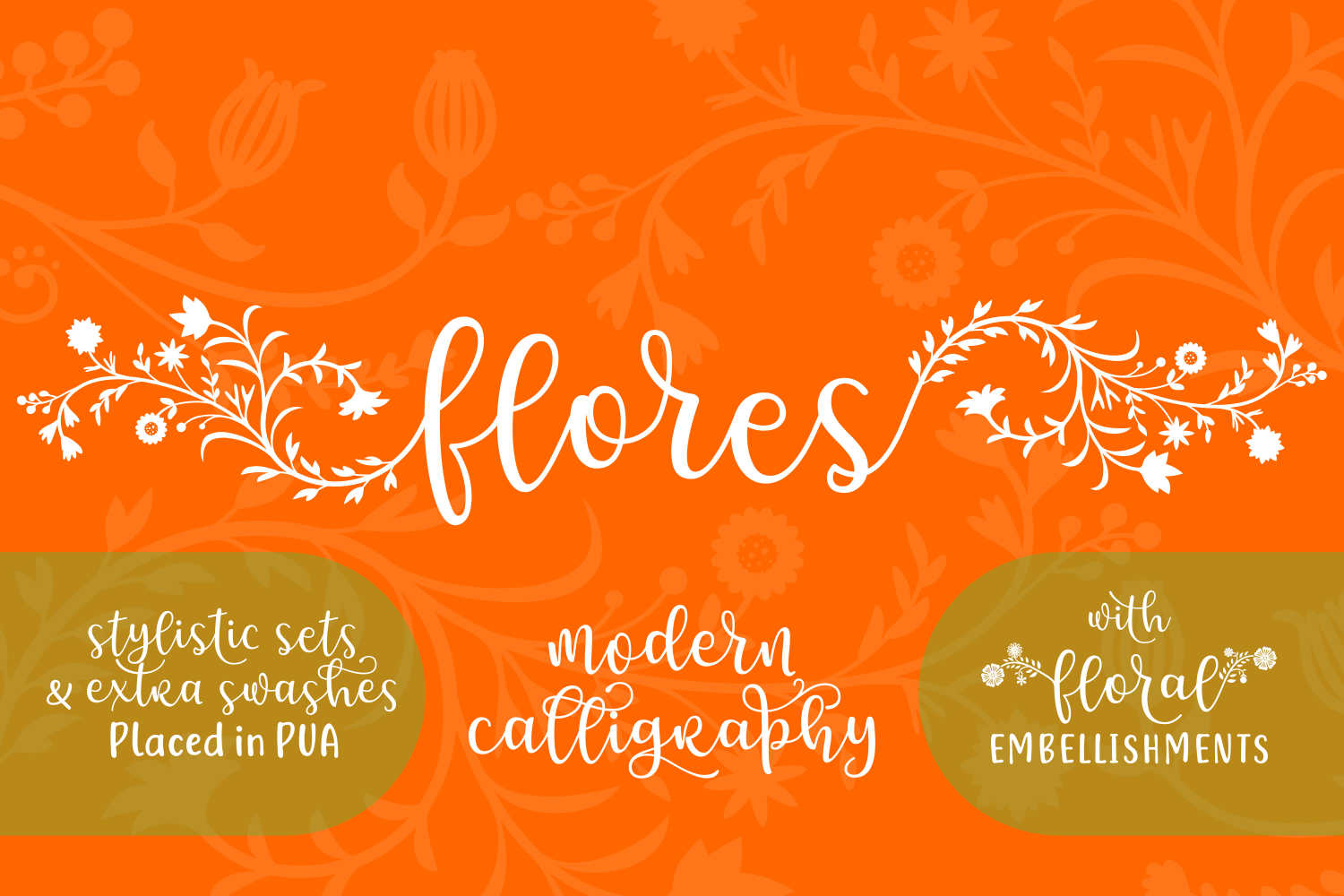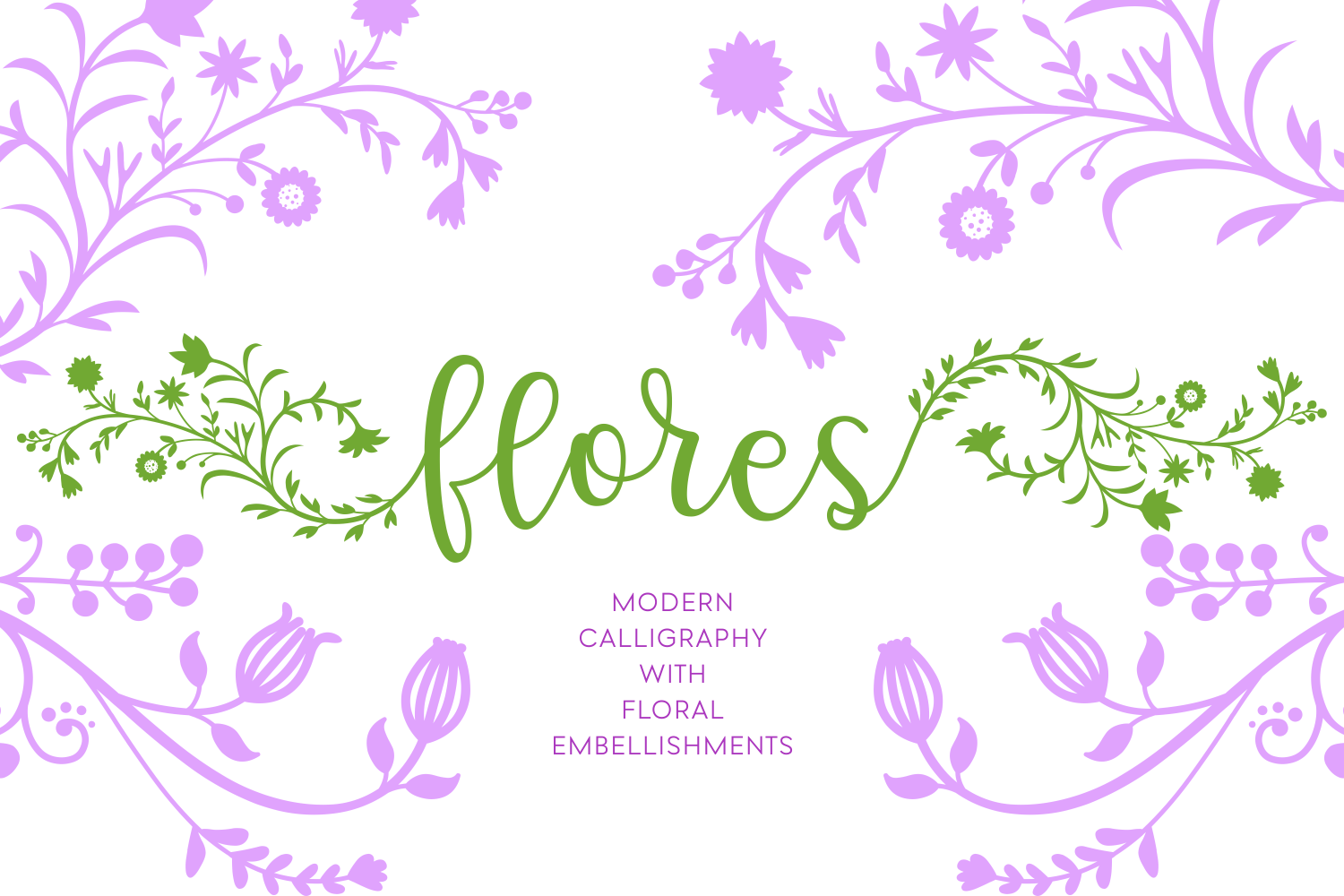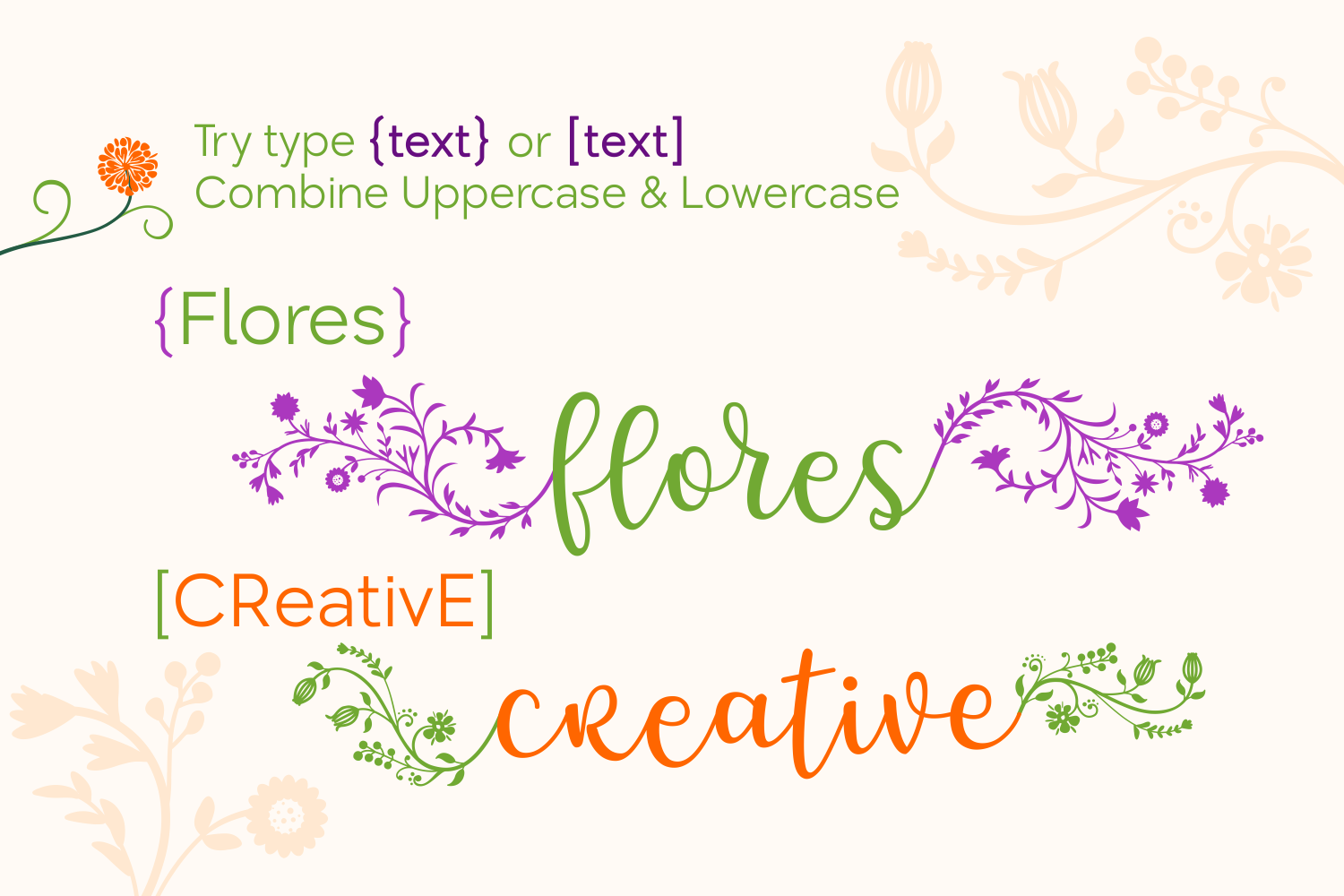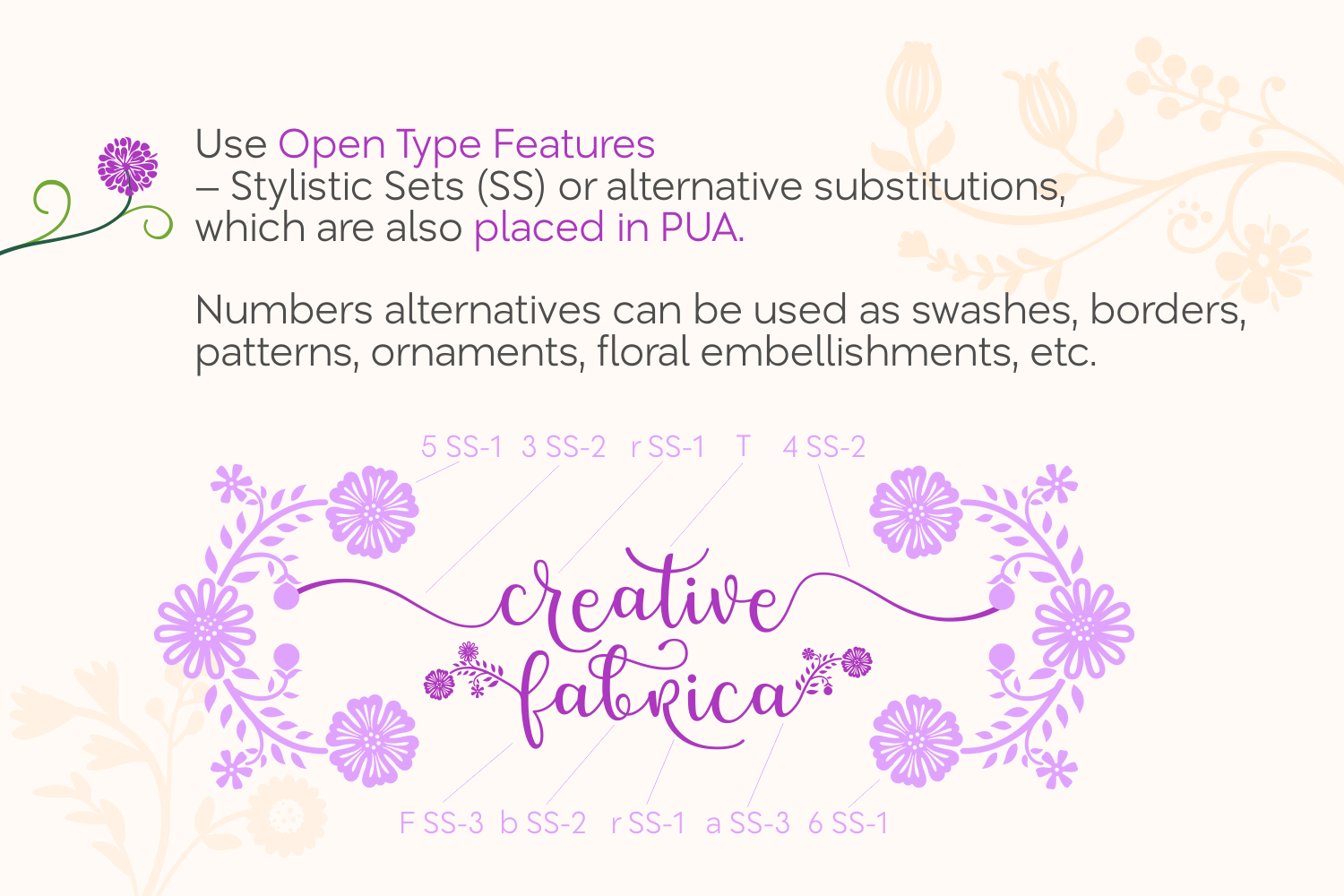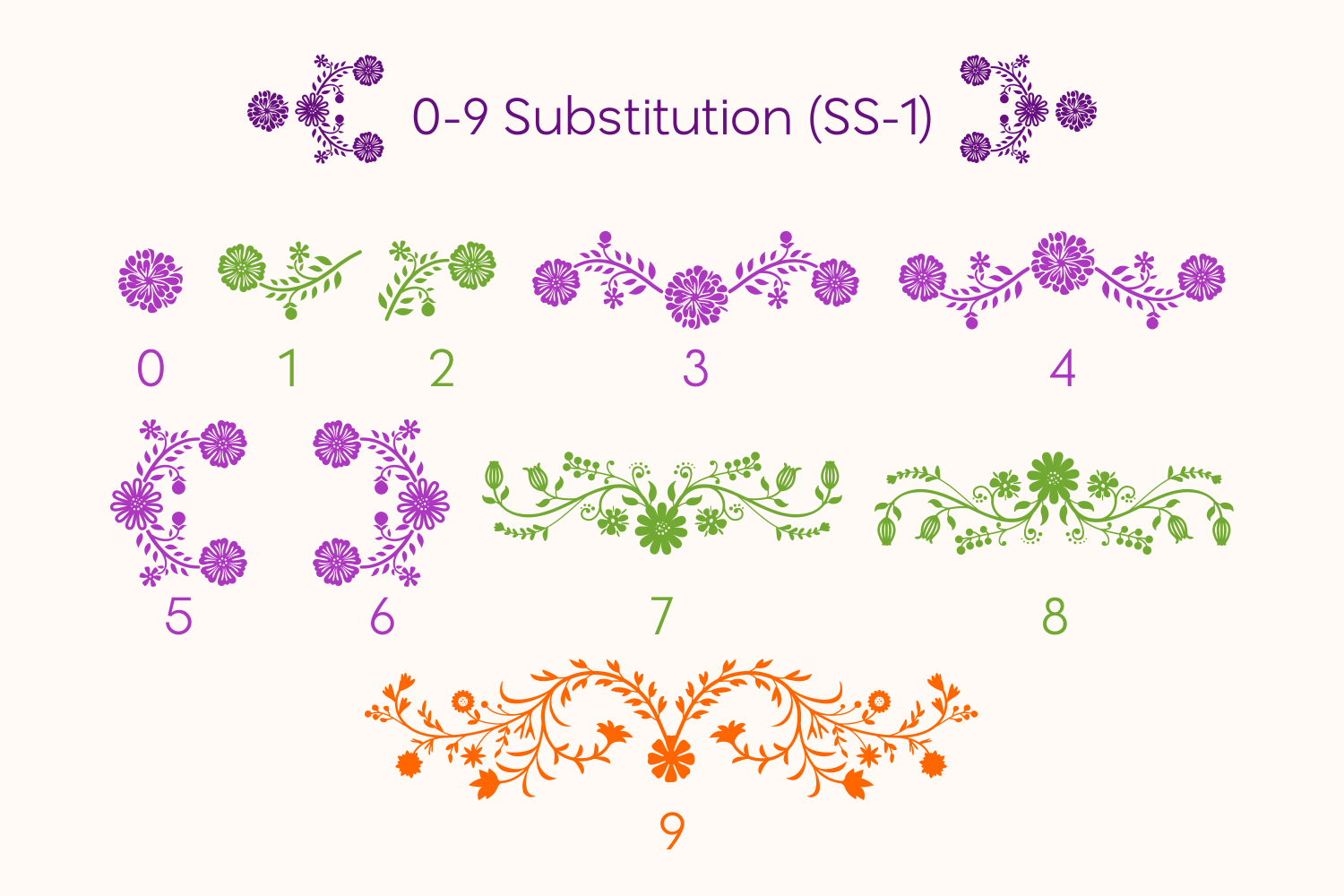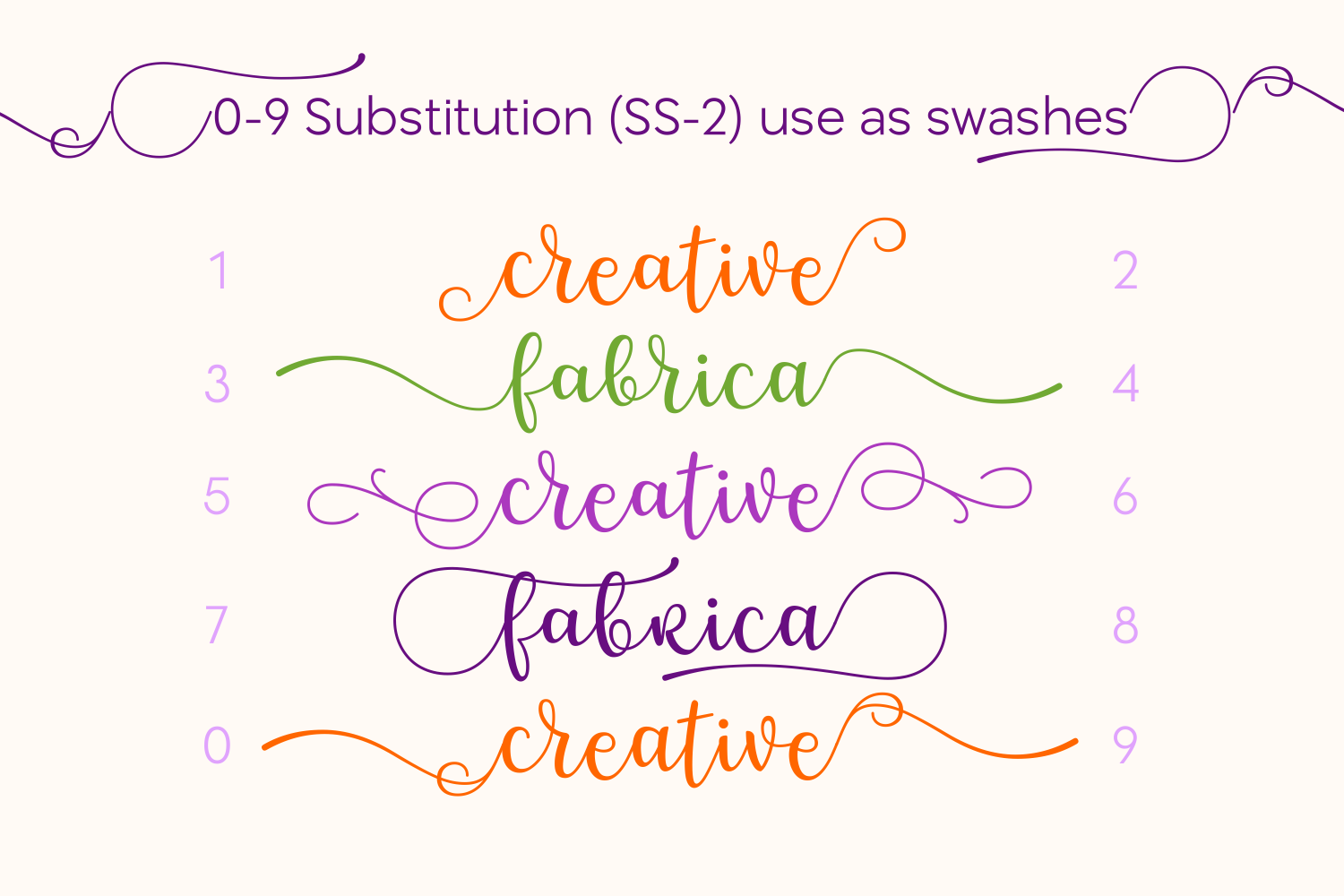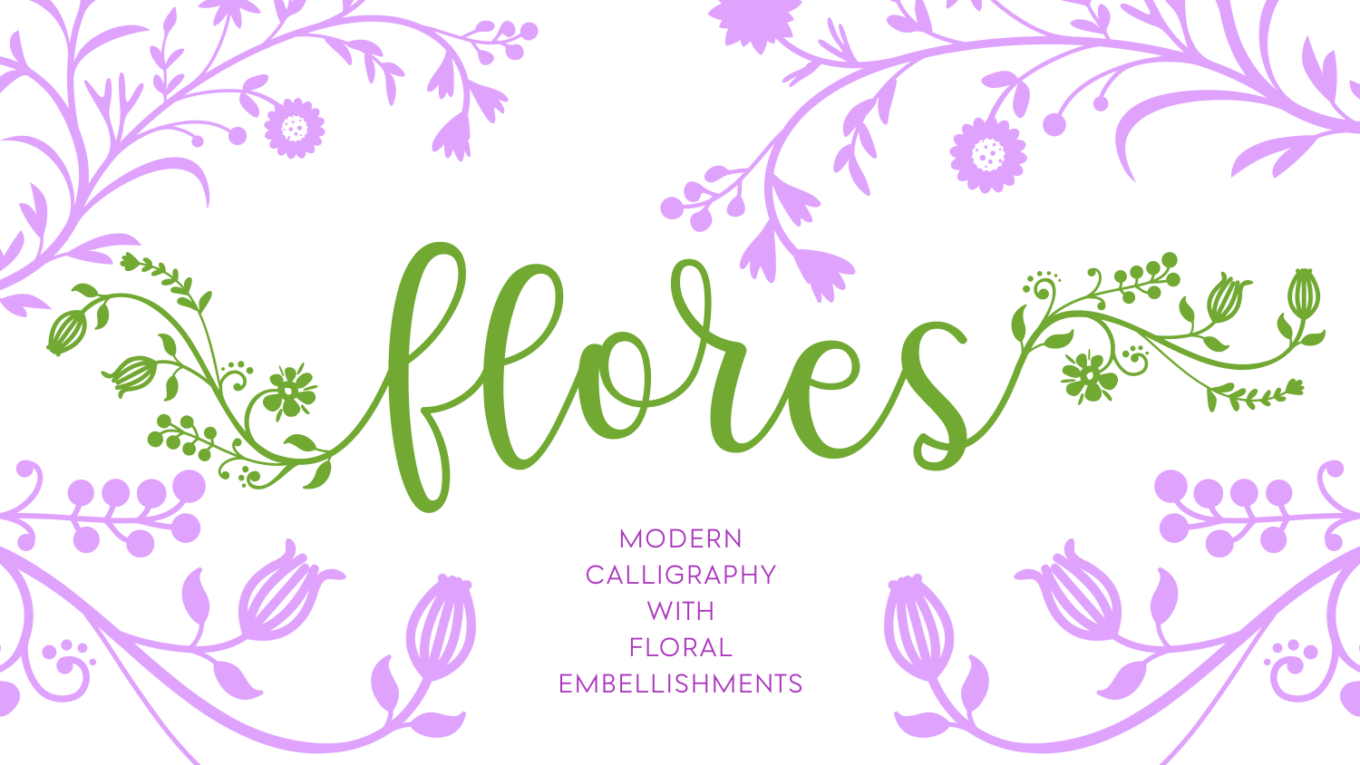
Introducing Flores Font: Elevate Your Designs with Modern Calligraphy and Floral Swashes
Are you looking for a font that can add a touch of elegance and sophistication to your designs? Look no further than Flores Font, a modern calligraphy font that is packed with beautiful floral swashes. This stunning font is perfect for designers and crafters who want to create unique and memorable designs that stand out from the crowd.
What is Flores Font?
Flores Font is a modern calligraphy font that is designed to provide a natural and effortless look. The font features beautiful floral swashes that are integrated seamlessly into the design, creating a cohesive and polished look. The swashes are carefully crafted to add a touch of whimsy and elegance to any design, making it perfect for a variety of projects.
Key Features of Flores Font
- Modern Calligraphy: Flores Font features a modern calligraphy style that is both elegant and sophisticated.
- Floral Swashes: The font includes a range of beautiful floral swashes that are integrated into the design, creating a natural and effortless look.
- Traditional Swashes: In addition to the floral swashes, the font also includes traditional swashes that can be used to add a touch of classic elegance to your designs.
- Easy to Use: Flores Font is easy to use and can be integrated into a variety of design projects, from digital designs to print materials.
See Flores Font in Action
To get a sense of the beauty and versatility of Flores Font, be sure to check out some examples of the font in action. Whether you’re creating a stunning wedding invitation, a beautiful poster, or a unique craft project, Flores Font is the perfect choice. The font’s elegant and sophisticated design makes it perfect for a wide range of applications, from formal events to everyday designs.
Flores Font is perfect for designers and crafters who want to create unique and memorable designs. The font’s modern calligraphy style and beautiful floral swashes make it ideal for a variety of projects, from digital designs to handmade crafts. Whether you’re creating custom vinyl decals, iron-on designs, or paper crafts, Flores Font is the perfect choice.
Tips for Using Flores Font
- Experiment with Different Sizes: Flores Font looks great in a variety of sizes, from small and delicate to large and bold. Experiment with different sizes to find the one that works best for your project.
- Combine with Other Fonts: Flores Font can be combined with other fonts to create a unique and interesting look. Try pairing it with a bold sans-serif font for a striking contrast.
- Use the Swashes Creatively: The swashes in Flores Font are designed to be used creatively. Experiment with different swash combinations to add a touch of elegance and sophistication to your designs.
Flores Font is a stunning modern calligraphy font that is perfect for designers and crafters who want to create unique and memorable designs. With its beautiful floral swashes and traditional swashes, this font is ideal for a wide range of projects, from digital designs to handmade crafts. Whether you’re creating custom vinyl decals, iron-on designs, or paper crafts, Flores Font is the perfect choice. So why wait? Download Flores Font today and start creating stunning designs that will leave a lasting impression.